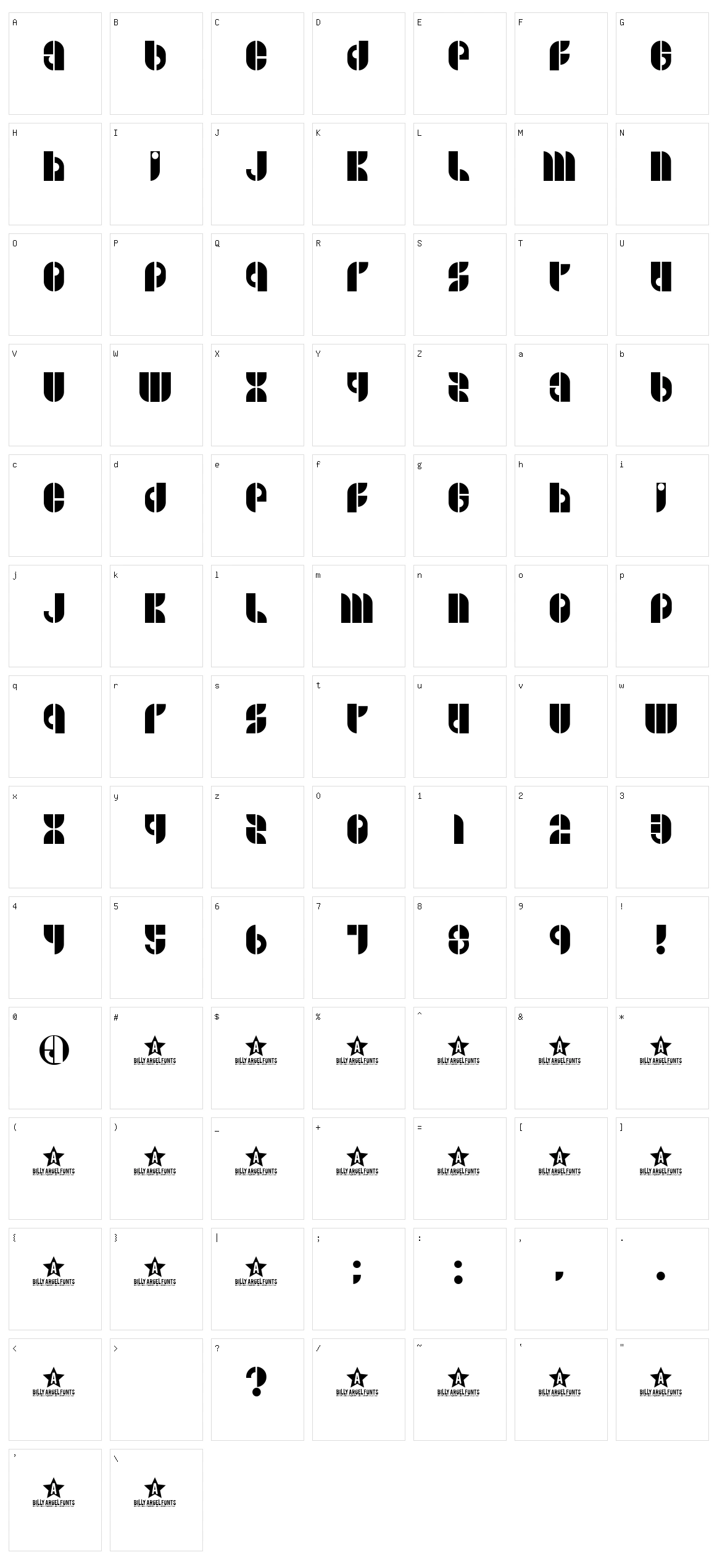
The free font B Side is carefully designed by Billy Argel Fonts ®, showcasing a thoughtful balance of creativity and usability and falls under the Groovy font style. When you download the ZIP file, it contains only 43.18 KB of font files, making it lightweight and quick to download. Please review the license details below to understand permitted usage and distribution rights. If license information is not available, we recommend using this font for personal projects only or contacting the author directly for commercial usage permissions.
B SIDE FONT